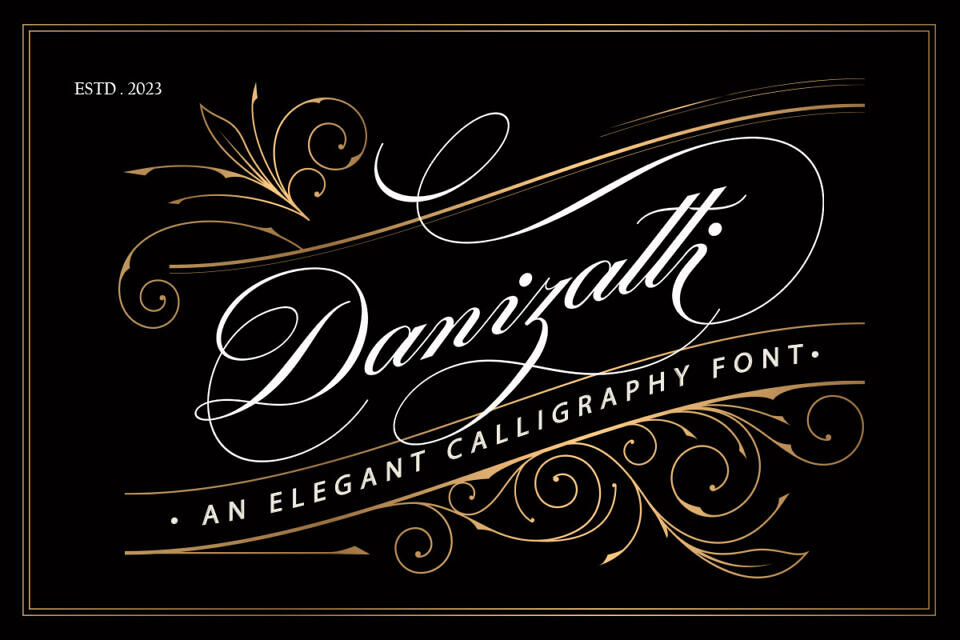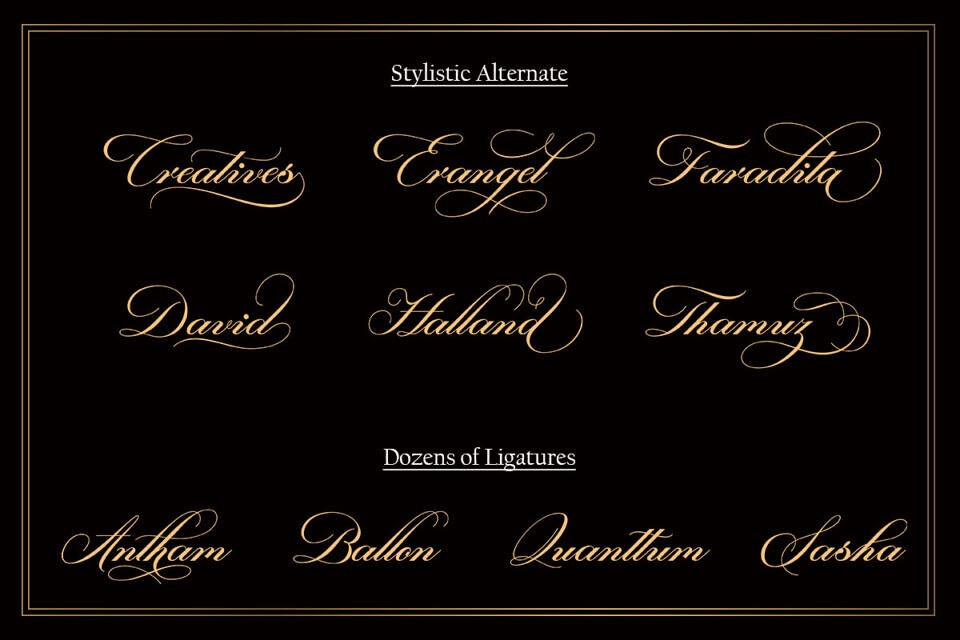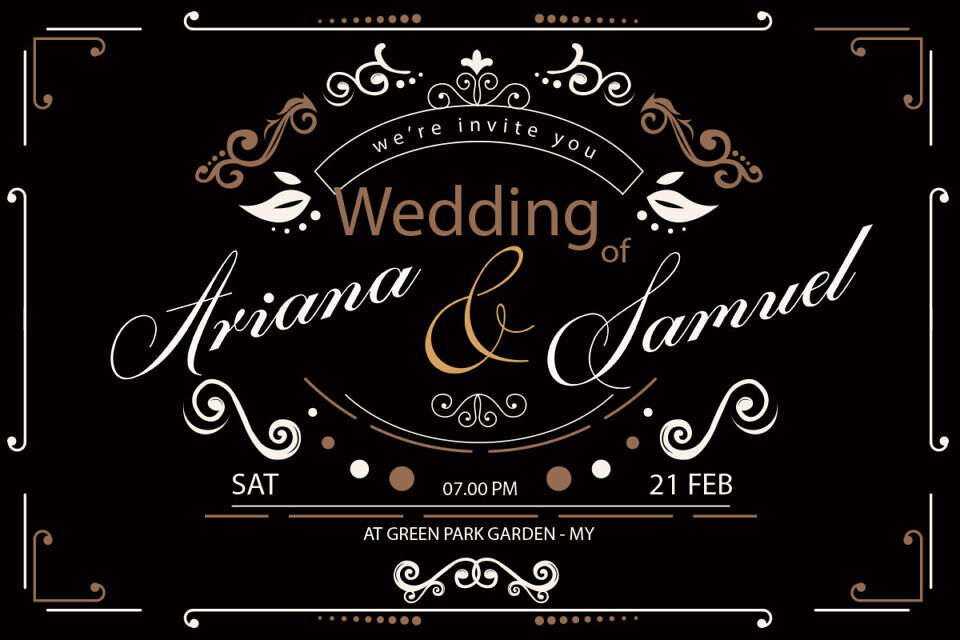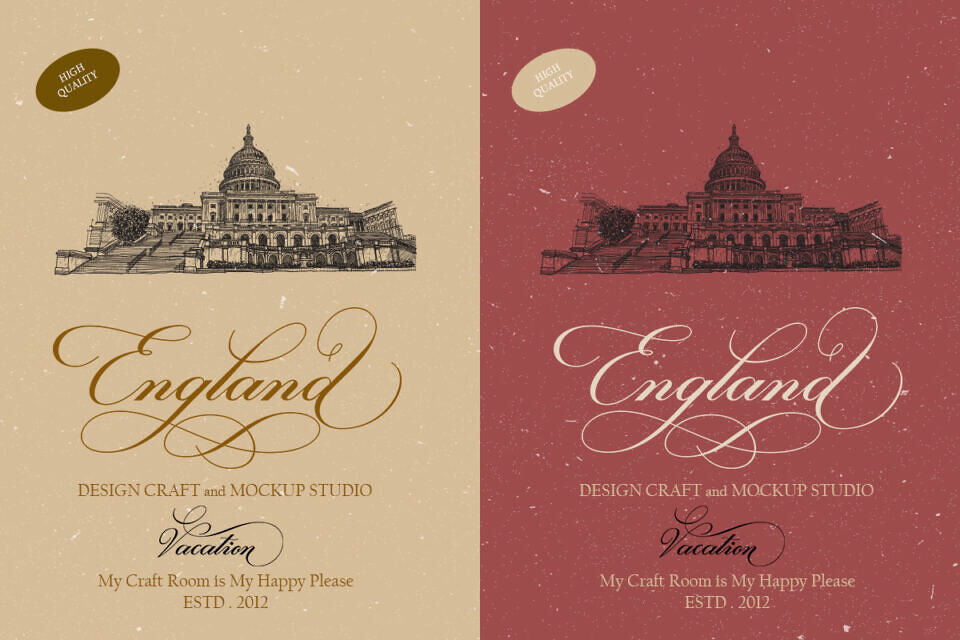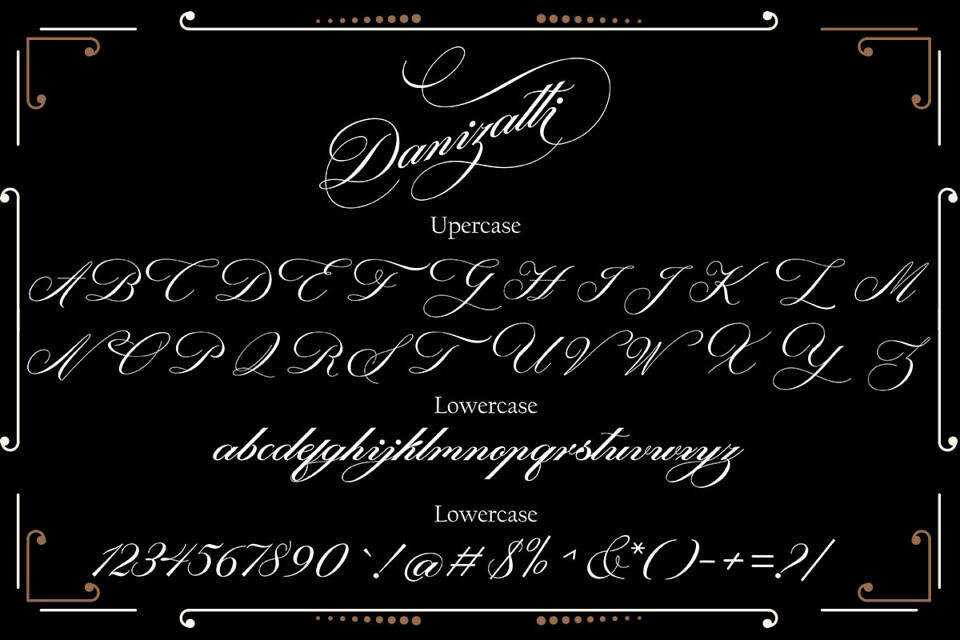
Dannizatti Script Font
Danizatti is a kind of classic decorative script with a modern twist. This is a display font intended for vintage logos, fashion labels, custom card headers, badges, food packaging designs, and especially wine labels.